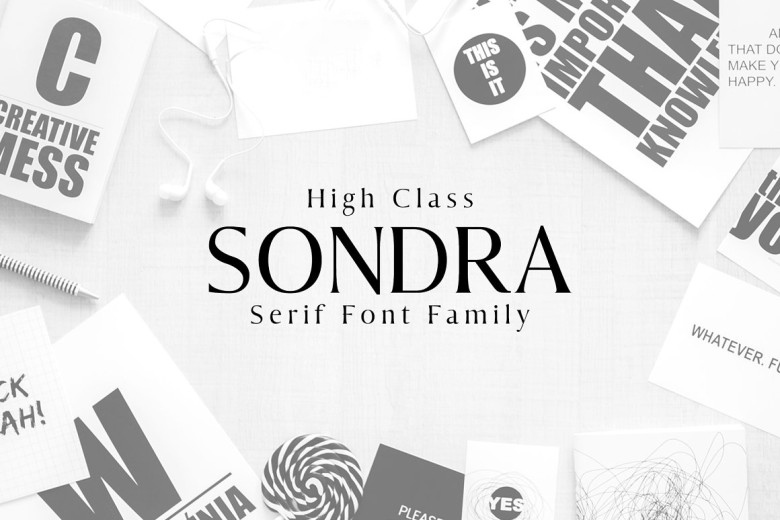
Sondra Font
Sondra is a beautiful, minimalist seriff font family of six weights. The name Sondra means sound. It comes with a modern serif look and feel. Perfect for a logo and title design that will get everyone else’s attention. Also suitable for large or small scale displays, layouts or content. This all purpose typeface looks great in all caps with a spaced out setting if you want to try for an elegant look, or beautiful all by itself with capital and lowercase letters for something timeless.
Sondra Serif Font